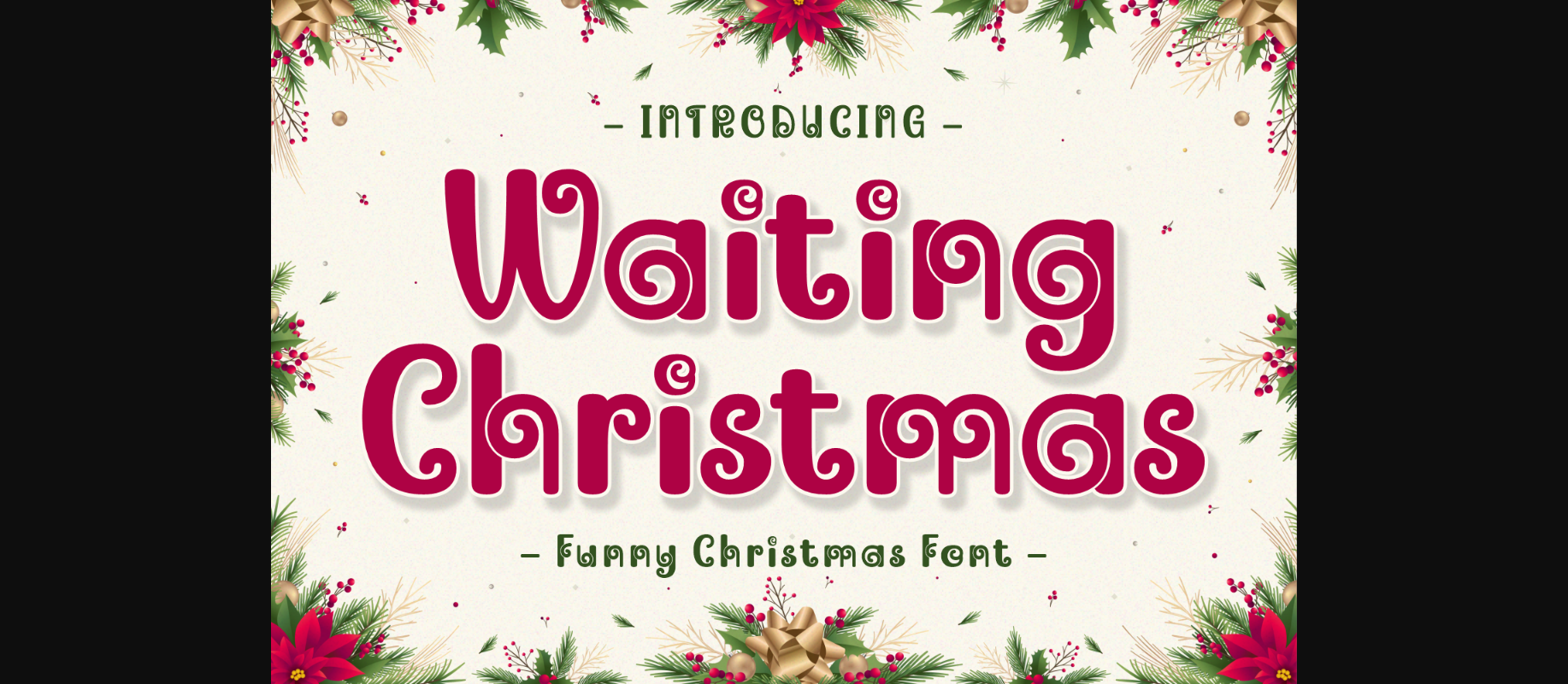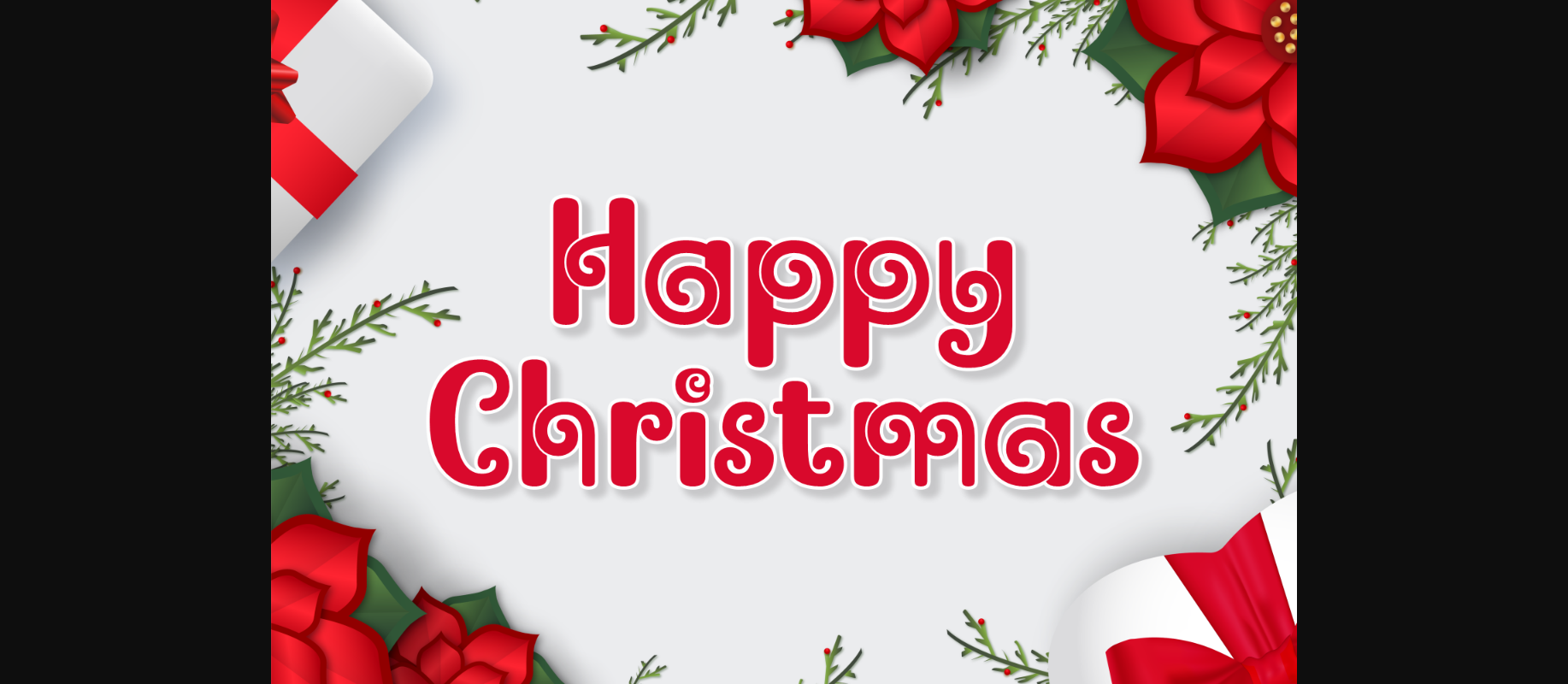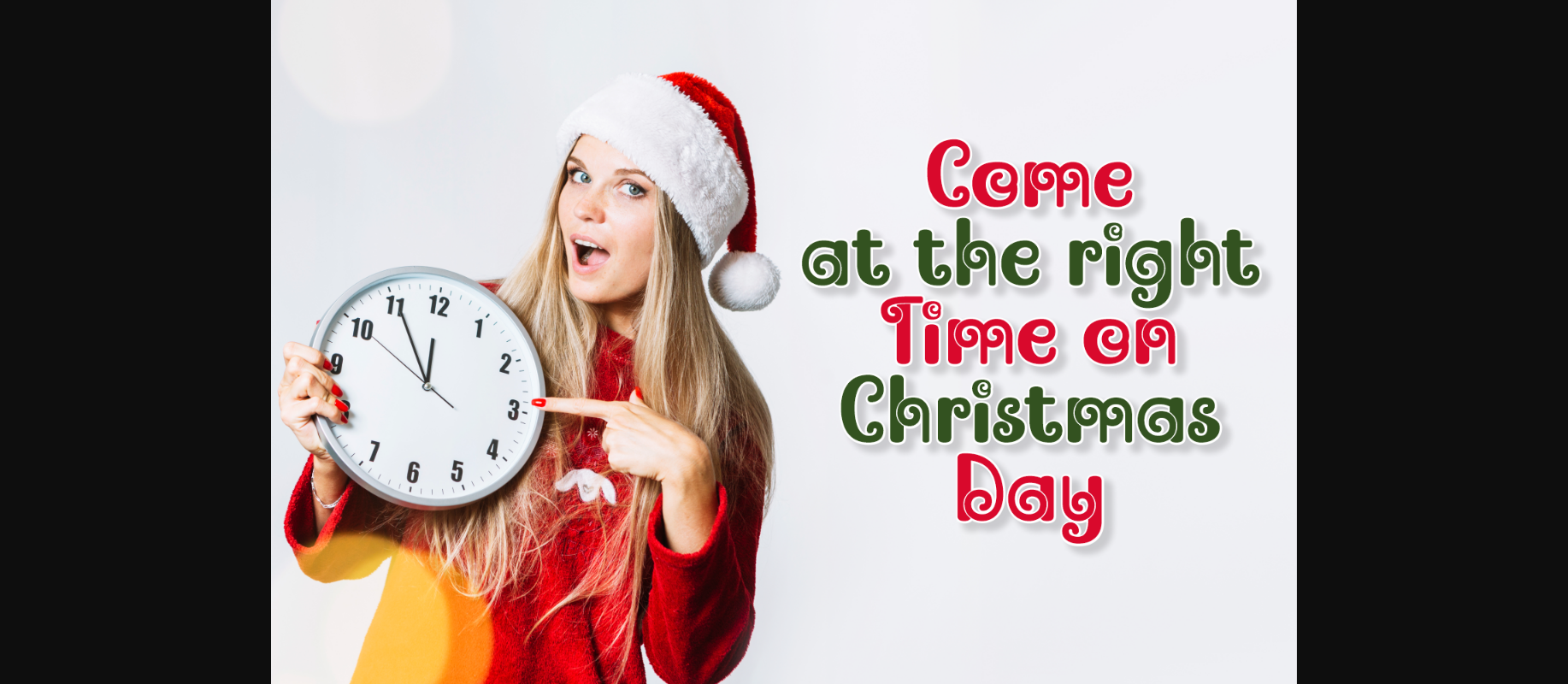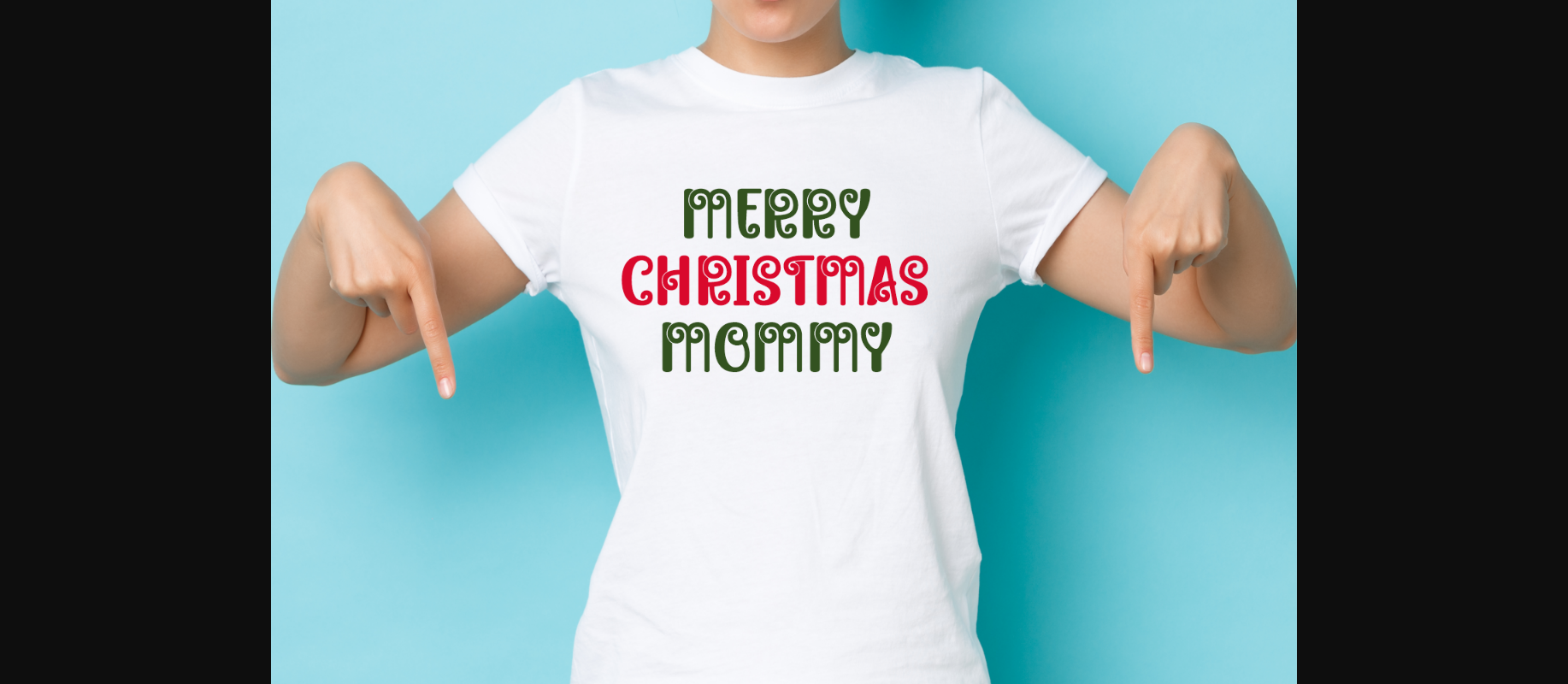
About Waiting Christmas Font
Waiting Christmas is a gorgeous decorative font, that fits incredibly well to this time of the year. No matter the topic, this font will be an incredible asset to your fonts’ library, as it has the potential to elevate any creation.